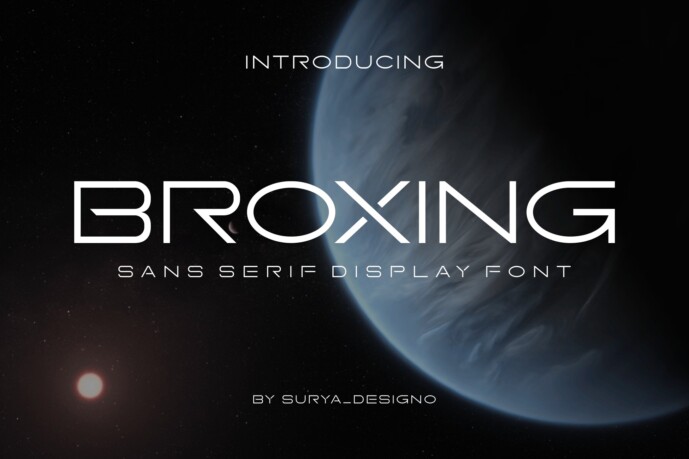
Broxing Font
Introducing our new product Broxing Font – Modern Font
Broxing Font – Modern Font is a bold and authentic display font. The font is suitable for any branding project like logo, t-shirt printing, esport, and many more. outstanding in a wide range of contexts.